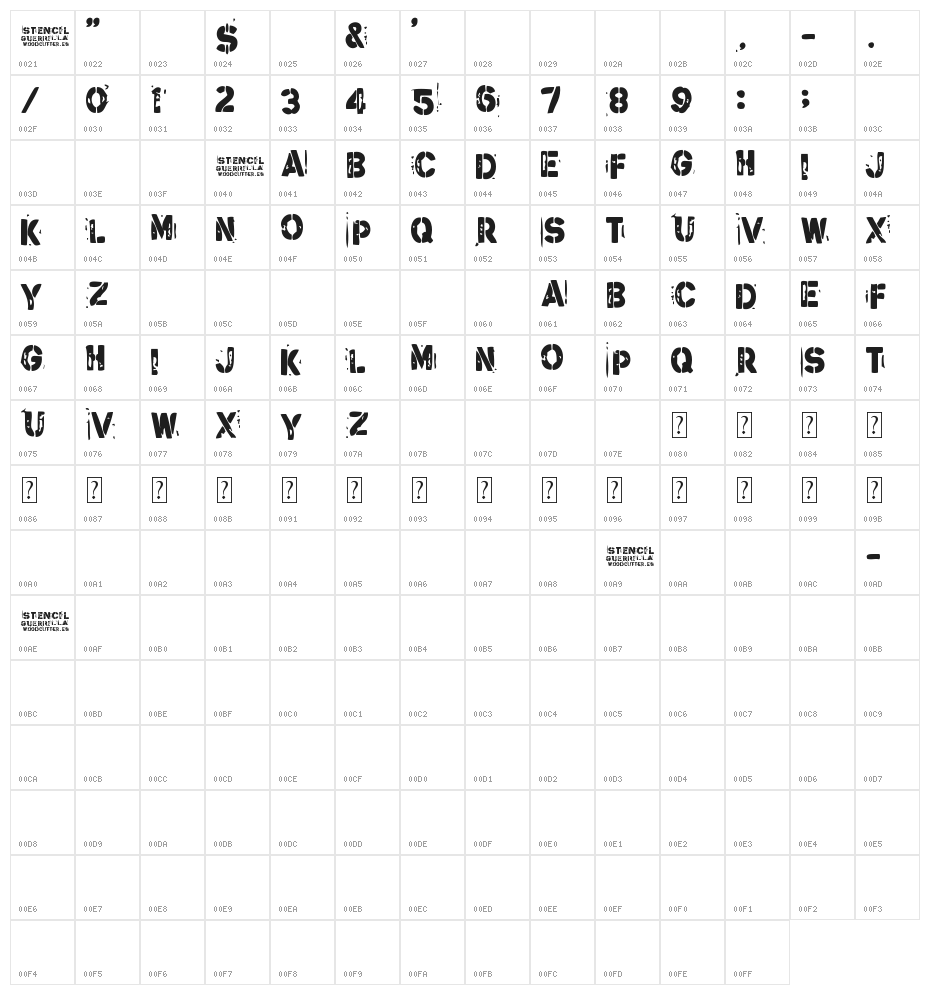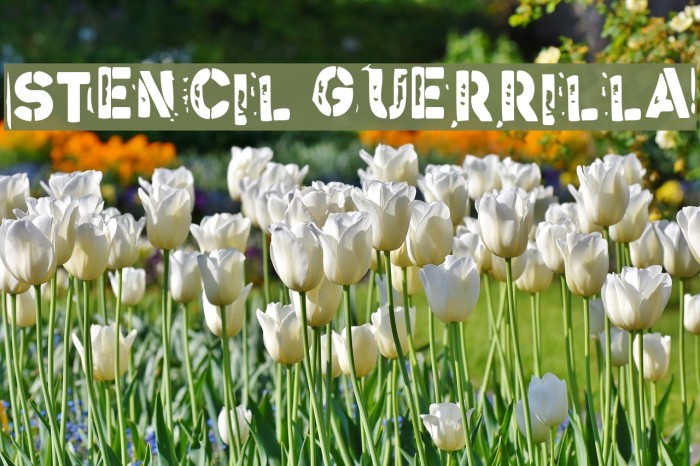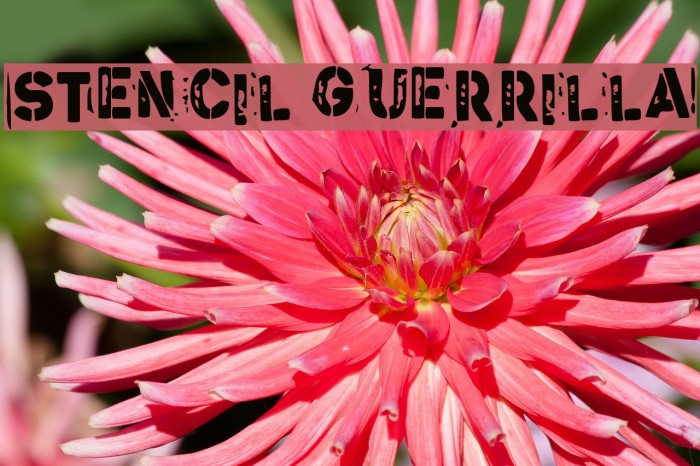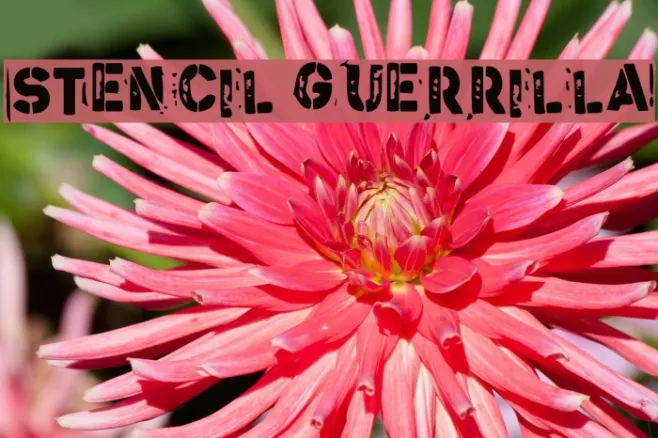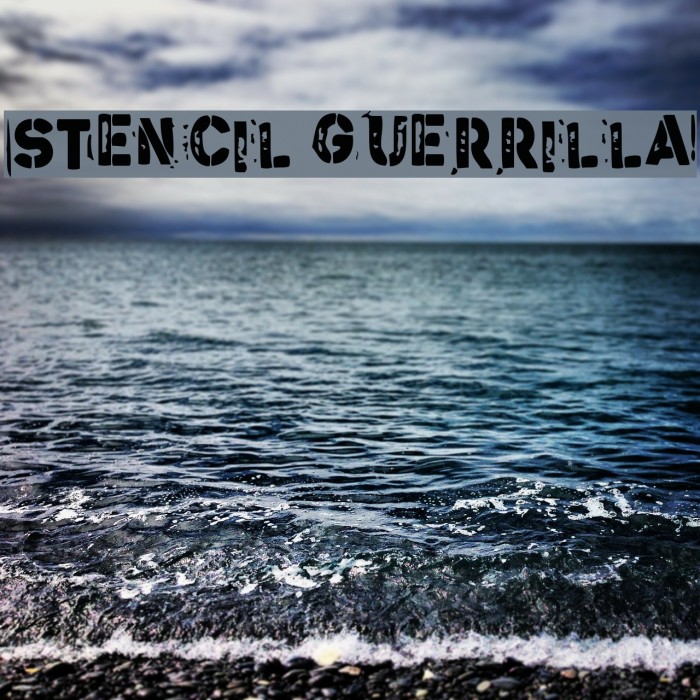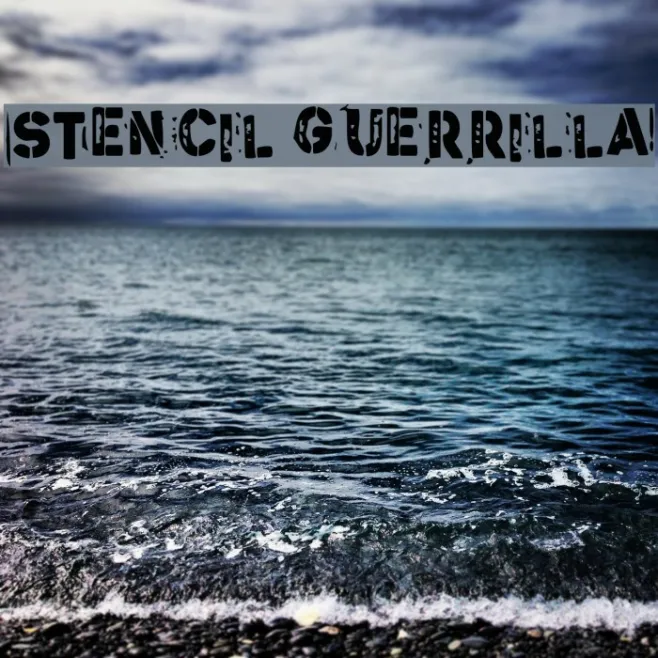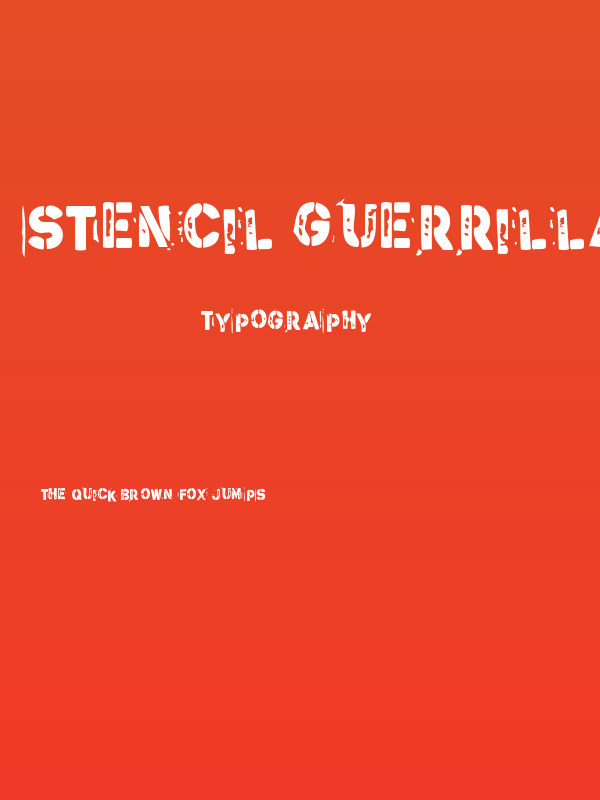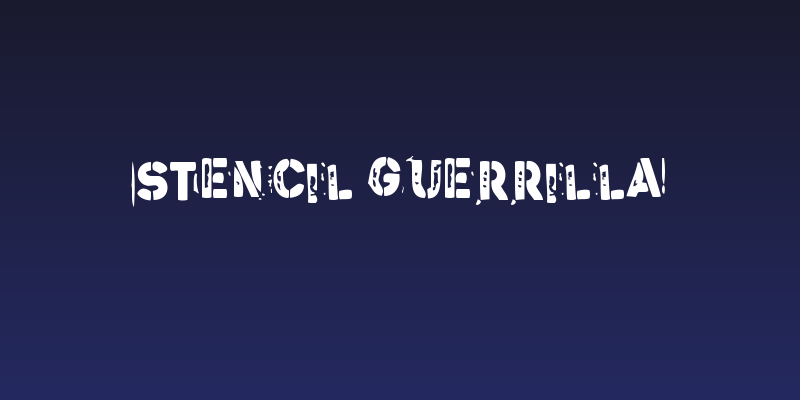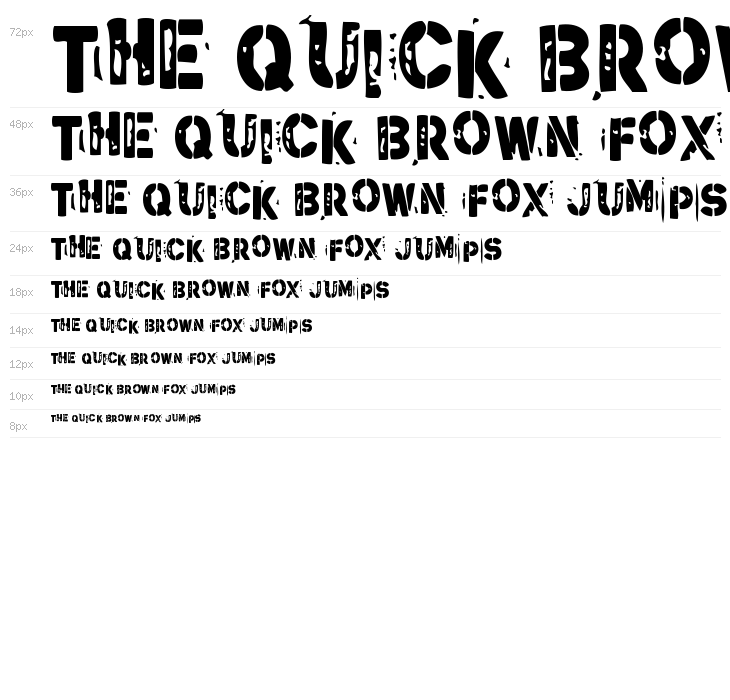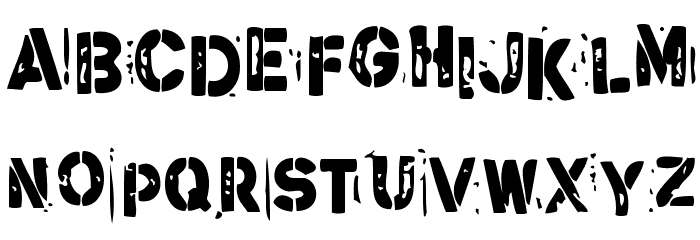
Stencil Guerrilla Font
Stencil Guerrilla Description
This font features a bold, distressed stencil style, reminiscent of guerrilla art and urban street culture. The characters are designed with intentional breaks and rough edges, giving them a rugged, worn appearance. The uppercase letters are prominent, with a consistent height and width, while the numbers and special characters maintain the same distressed aesthetic. This font is ideal for projects that require a gritty, rebellious look, such as posters, album covers, or streetwear branding.
| Overall Style | Urban, Rebellious, Gritty |
| Proposed Projects | Ideal for street art-inspired designs, protest posters, edgy branding, and urban-themed merchandise. |